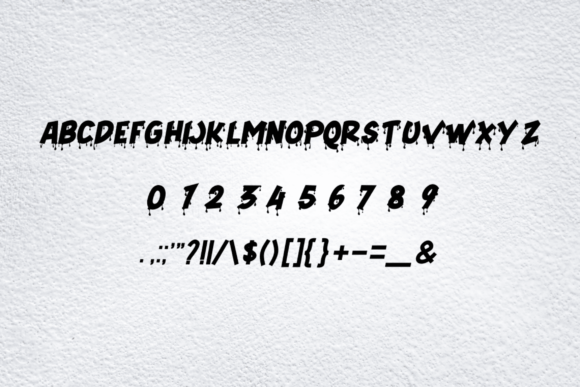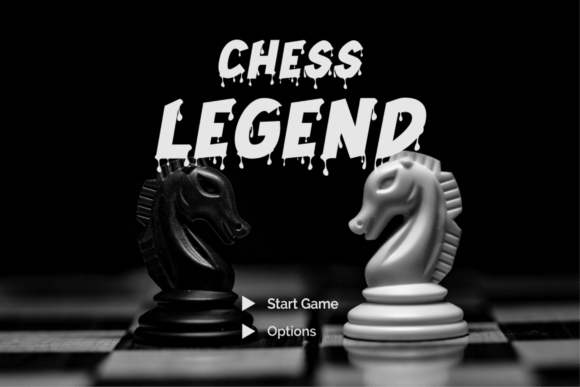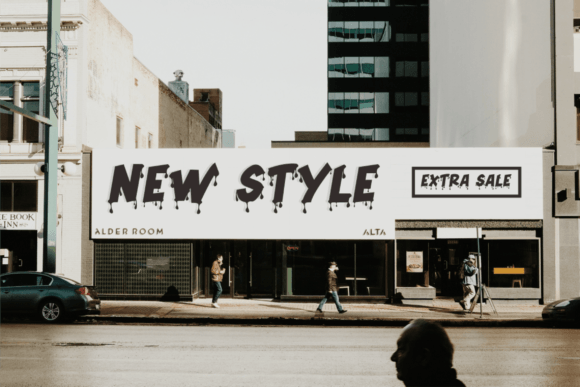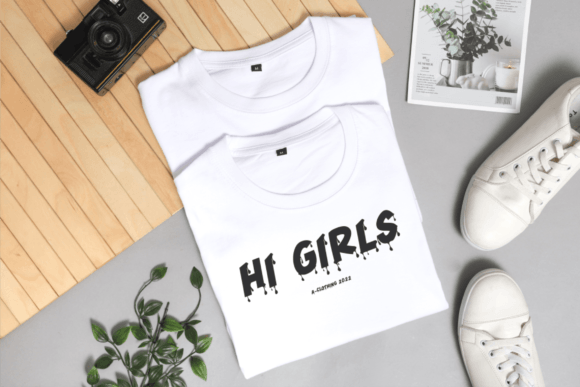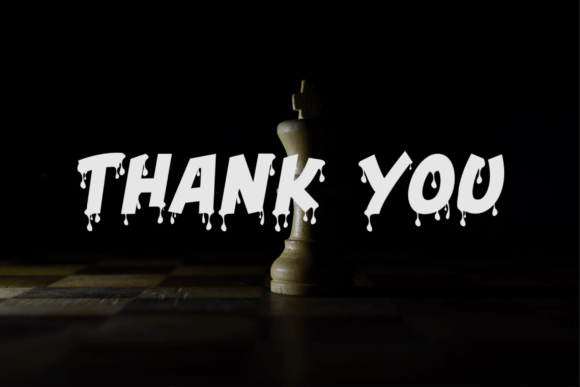
Introducing Ademee Font: The Ultimate Display Font for Bold Branding
In the world of typography, a font can make or break a brand’s identity. A well-crafted font can elevate a brand’s visual appeal, convey its personality, and leave a lasting impression on its audience. If you’re a designer, craftsperson, or entrepreneur looking for a font that can help you create stunning brand assets, look no further than Ademee Font. In this article, we’ll dive into the world of Ademee Font, exploring its features, benefits, and uses.
What is Ademee Font?
Ademee is a bold and authentic display font designed to make a statement. Its unique blend of modern and classic elements makes it suitable for a wide range of branding projects, from logos and t-shirt printing to export and more. With Ademee Font, you can add a touch of sophistication and elegance to your designs, making it perfect for crafters, designers, and entrepreneurs who want to create high-quality brand assets.
Key Features of Ademee Font
- Bold and Authentic: Ademee Font is designed to make a bold statement. Its authentic style ensures that your brand stands out from the crowd.
- Versatile: Whether you’re creating a logo, t-shirt design, or export material, Ademee Font is suitable for a wide range of contexts.
- High-Quality: With its clear and crisp design, Ademee Font ensures that your brand assets look professional and polished.
- Easy to Read: Despite its bold style, Ademee Font is easy to read, making it perfect for use in various design applications.
Benefits of Using Ademee Font
So, why choose Ademee Font for your branding projects? Here are just a few benefits of using this amazing display font:
- Instant Brand Recognition: With Ademee Font, you can create stunning brand assets that grab attention and leave a lasting impression.
- Professional Look: Ademee Font’s high-quality design ensures that your brand assets look professional and polished, helping you establish a strong brand identity.
- Flexibility: Whether you’re designing for print or digital media, Ademee Font is versatile enough to work seamlessly across various platforms.
- Unique Style: With Ademee Font, you can add a touch of uniqueness to your designs, setting your brand apart from the competition.
Uses of Ademee Font
Ademee Font is an incredibly versatile font that can be used in a wide range of design applications, including:
- Logo Design: Create a bold and memorable logo that showcases your brand’s personality.
- T-Shirt Printing: Design stunning t-shirts that make a statement with Ademee Font.
- Export and Packaging: Use Ademee Font to create eye-catching export materials and packaging that stands out.
- Digital Media: From social media graphics to website headers, Ademee Font is perfect for creating engaging digital content.
- What is Ademee Font? Ademee Font is a bold and authentic display font suitable for branding projects like logos, t-shirt printing, export, and more.
- Is Ademee Font easy to read? Yes, despite its bold style, Ademee Font is easy to read, making it perfect for use in various design applications.